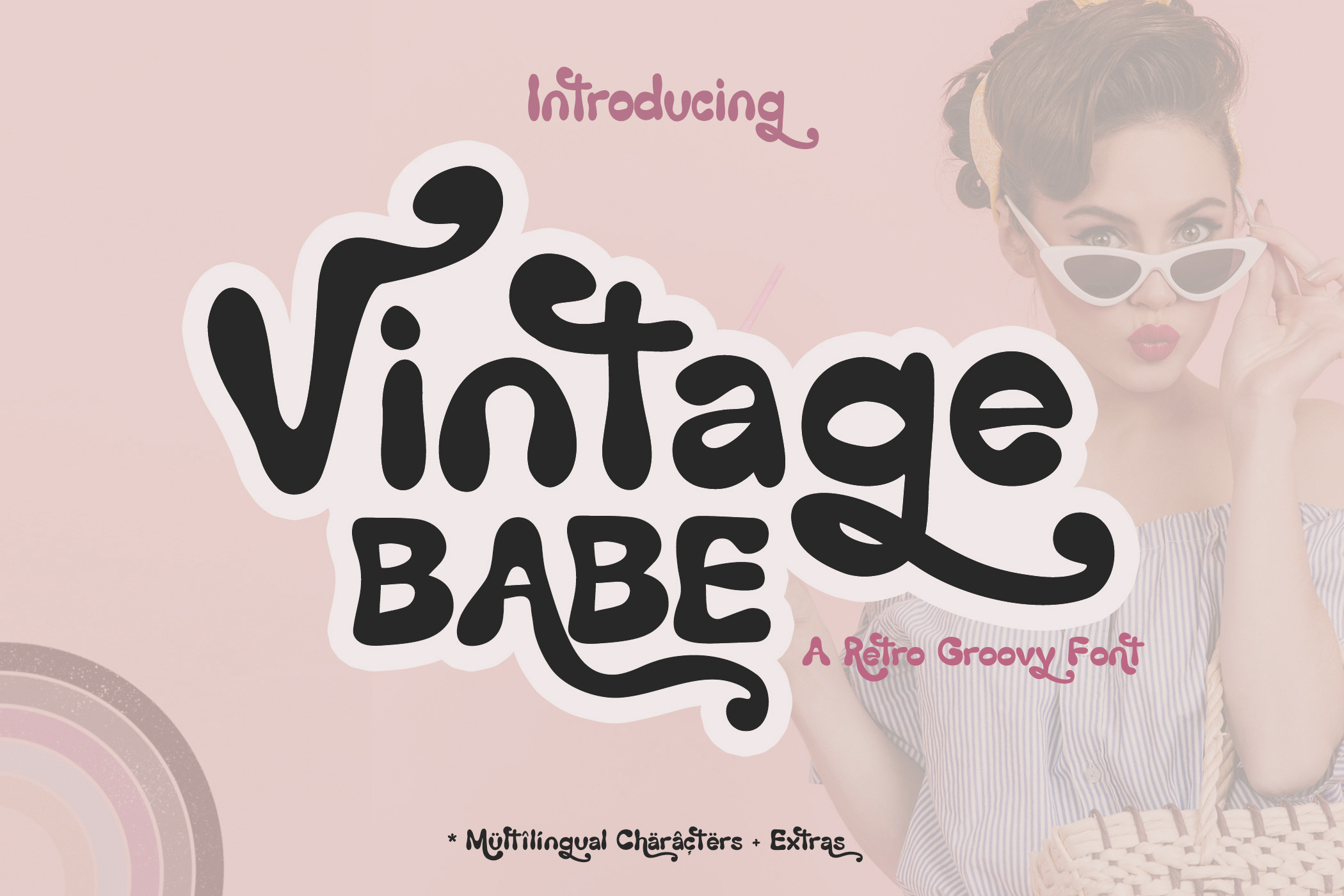
Vintage Babe Retro Groovy Font
Introducing Vintage Babe, a dreamy hand-drawn display retro groovy font. It's a versatile font with plenty of ligatures and stylistic alternates, with possibilities for use for all your projects.
Vintage Babe font is perfect for:
- logos + branding
- creating retro shirt designs and other apparel
- stickers, phone cases, home decor
- social media templates and instagram quotes
- cricut and silhouette projects
- procreate and so much more
Vintage Babe includes:
- All Uppercase / Lowercase characters
- numbers + punctuation
- Western European Language Support